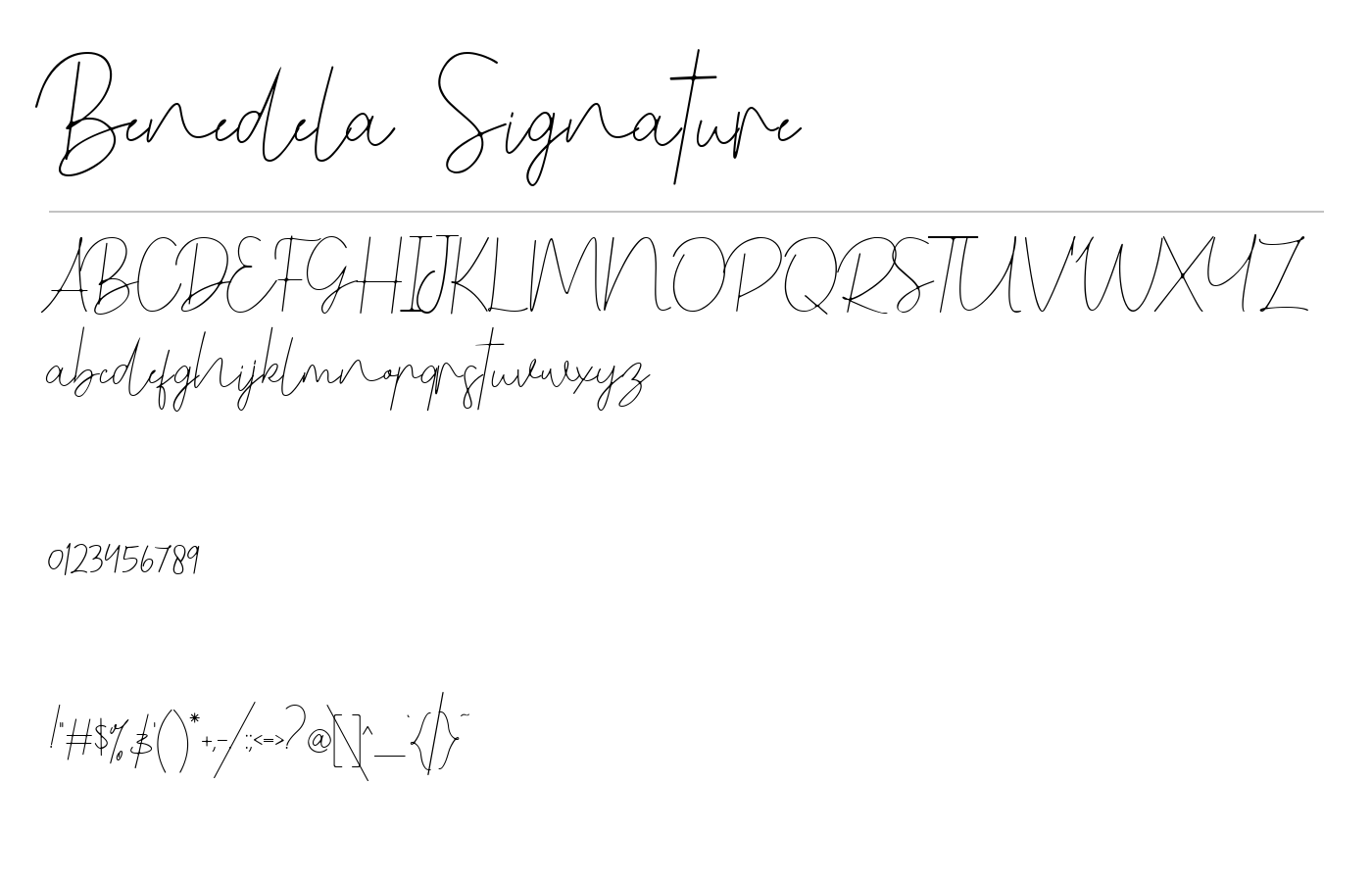
Benedela Signature is a delicate, thin-script font that mimics elegant, handwritten calligraphy with a refined and airy feel. Its tall, narrow letterforms and subtle irregularities give it a personal and sophisticated touch, making it ideal for branding, wedding invitations, and other creative projects seeking a graceful, intimate style. This font works beautifully in contexts where a light, artistic, and modern handwritten look is desired.
Benedela Signature Font
About Benedela Signature Font